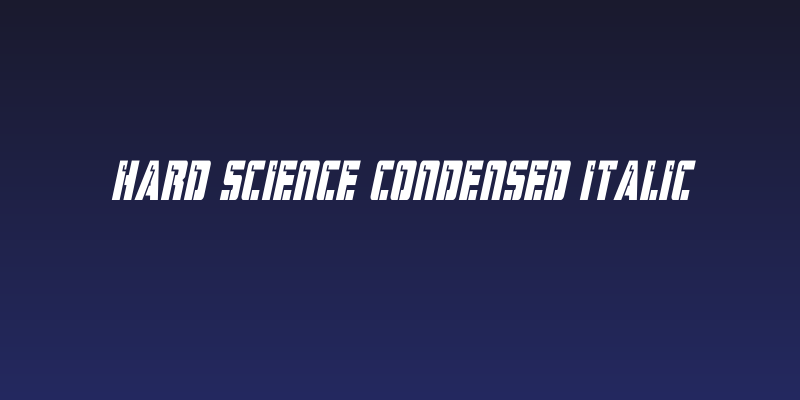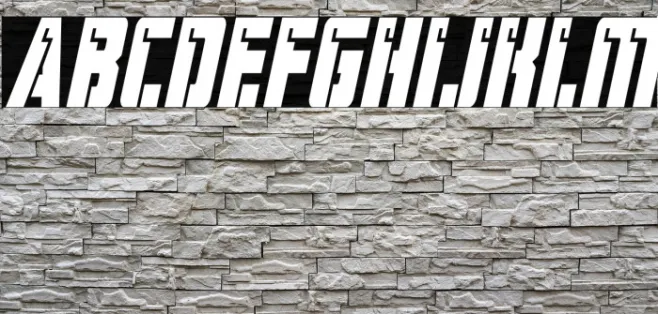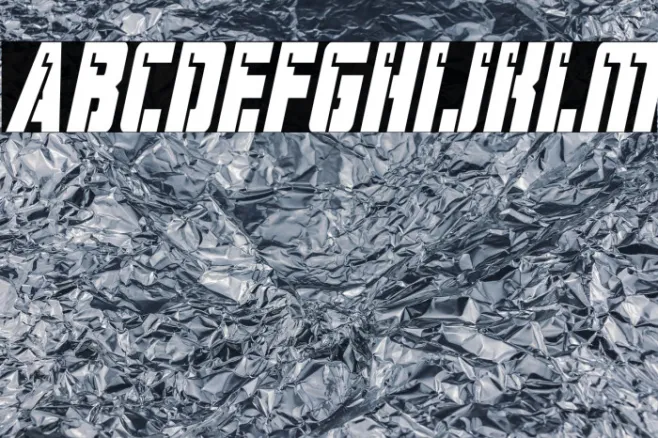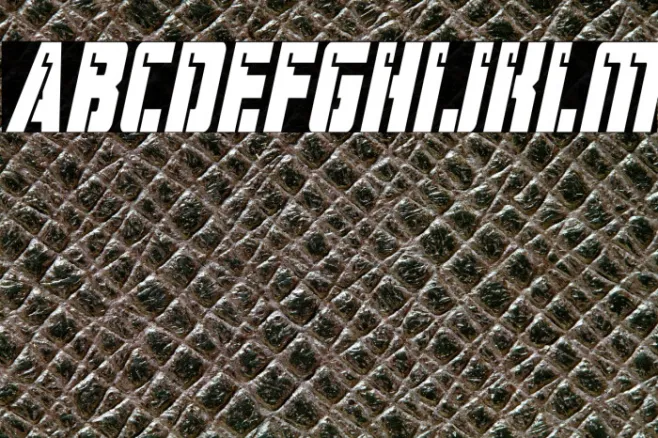
Hard Science Condensed Italic Font
Hard Science Condensed Italic Description
This font features a bold and dynamic design with a distinct italic slant, giving it a sense of motion and energy. The characters are condensed, maximizing space efficiency while maintaining readability. The strokes are thick and uniform, creating a strong visual impact. The angular and geometric shapes of the letters contribute to a futuristic and modern aesthetic, making it suitable for projects that require a bold statement. The font includes a full set of uppercase and lowercase letters, numbers, and a variety of special characters, offering versatility for different design needs.
| Proposed Projects | Ideal for sports branding, tech-related designs, posters, and headlines that need a strong and modern look. |